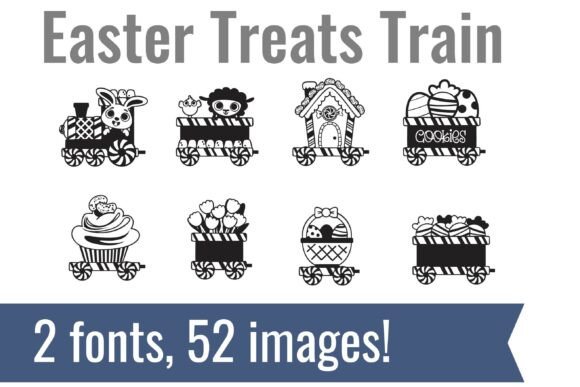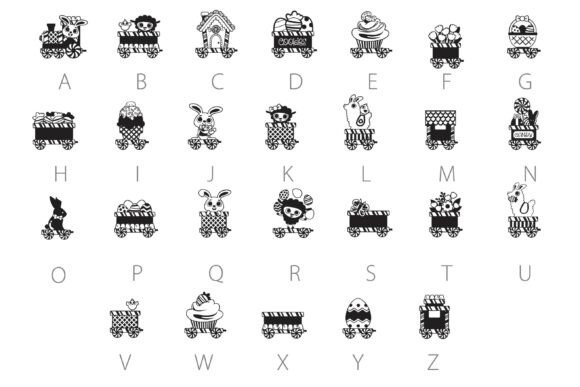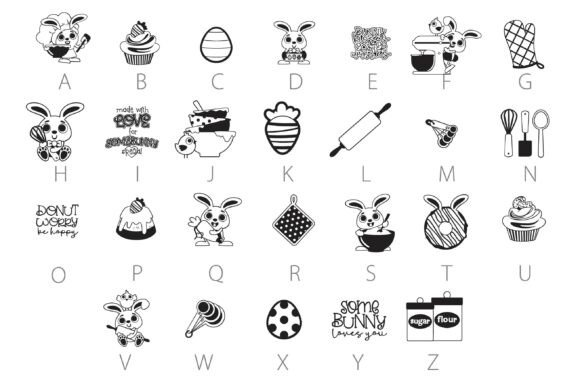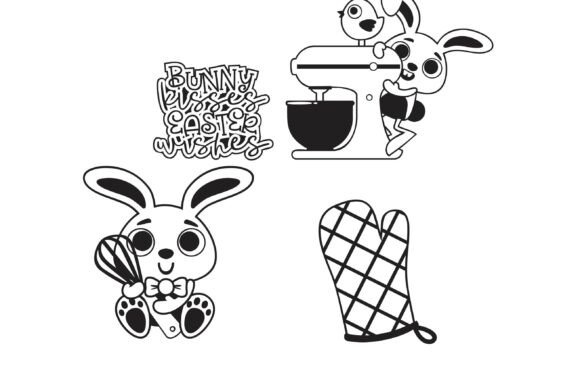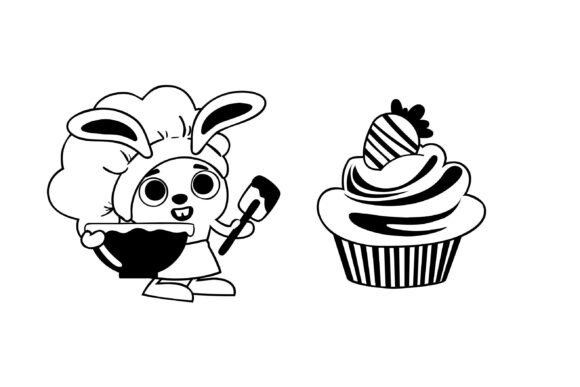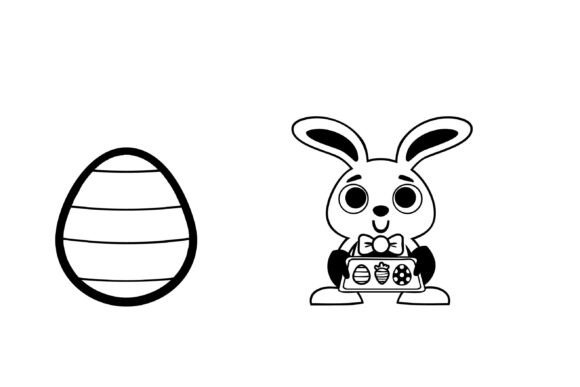
Unlock Endless Creativity with Easter Treats Dingbats Font
Are you tired of spending hours searching for the perfect icons and graphics for your Easter-themed projects? Look no further! Introducing the Easter Treats Dingbats Font, a bundle of two perfectly coordinated dingbat fonts that feature adorable Easter characters, treats, and trains. With these fonts, you can unlock endless creativity and produce stunning designs for various projects, from holiday cards to vinyl cutting and paper crafts.
What are Dingbat Fonts?
Dingbat fonts are a type of font that features graphical symbols, icons, or images instead of traditional letters. These fonts are designed to provide users with a wide range of pre-made images that can be easily accessed by typing a specific letter or character. Dingbat fonts are incredibly versatile and can be used for various design projects, including card making, scrapbooking, and digital art.
Easter Treats Dingbats Font Bundle
The Easter Treats Dingbats Font bundle includes two dingbat fonts that are perfectly coordinated to provide a cohesive look for your Easter-themed projects. The fonts feature a wide range of adorable Easter characters, treats, and trains, including:
- Easter eggs
- Bunnies
- Chicks
- Trains
- Treats
- Seasonal icons
With these fonts, you can create stunning designs for various projects, including:
- Holiday cards
- Invitations
- Vinyl cutting projects
- Paper crafts
- Planners
Benefits of Using Easter Treats Dingbats Font
Using the Easter Treats Dingbats Font bundle offers several benefits, including:
- Time-saving: With these fonts, you can save hours searching for the perfect icons and graphics. Simply install the font and type a letter to produce a pre-made image.
- Endless creativity: The Easter Treats Dingbats Font bundle provides you with dozens of cohesive, scalable designs that can be used for various projects.
- Easy to use: The fonts are incredibly easy to use, even for those who are new to dingbat fonts. Simply install the font and start typing to produce pre-made images.
- Scalable designs: The designs in the Easter Treats Dingbats Font bundle are scalable, meaning you can use them for various projects, from small icons to large banners.
Tips and Ideas for Using Easter Treats Dingbats Font
Here are some tips and ideas for using the Easter Treats Dingbats Font bundle:
- Create custom Easter cards: Use the Easter Treats Dingbats Font bundle to create custom Easter cards for your loved ones.
- Design Easter-themed invitations: Use the fonts to design Easter-themed invitations for parties, events, or gatherings.
- Make Easter-themed vinyl cuts: Use the fonts to create Easter-themed vinyl cuts for decorations, signs, or gifts.
- Create Easter-themed paper crafts: Use the fonts to create Easter-themed paper crafts, such as Easter baskets, eggs, or bunnies.
The Easter Treats Dingbats Font bundle is a must-have for designers and crafters who want to unlock endless creativity for their Easter-themed projects. With two perfectly coordinated dingbat fonts, you can create stunning designs for various projects, from holiday cards to vinyl cutting and paper crafts. Say goodbye to hours of searching for the perfect icons and graphics, and hello to a world of creative possibilities.